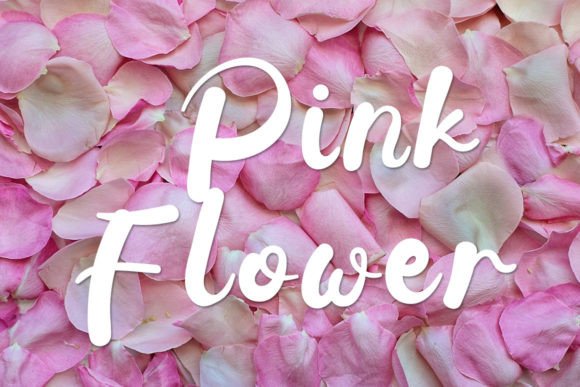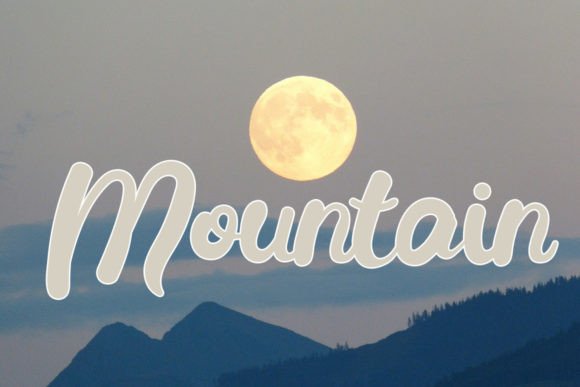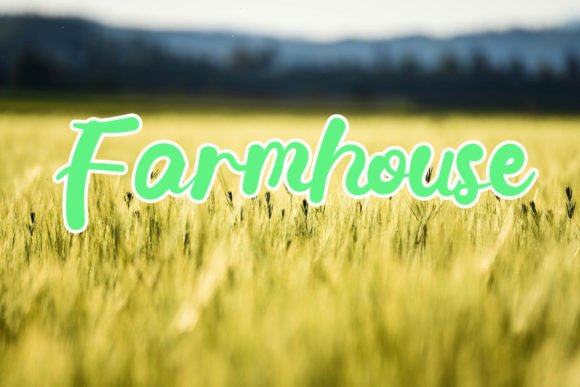
Ghatelly Font: Elevate Your Designs with a Touch of Elegance and Joy
In the vast universe of typography, where fonts are the essence of communication and design, there exists a myriad of choices for every creative project. Among these, the Ghatelly Font stands out as a beacon of elegance, freshness, and cleanliness. This beautiful and sweet font is not just a typeface; it’s an experience that can transform your designs, adding an incredibly joyful touch that captivates audiences. Whether you’re working on formal or informal projects, Ghatelly promises to leave a lasting impression.
The Essence of Ghatelly
Ghatelly is more than just a font; it’s a design element that brings a unique blend of sophistication and playfulness. Its fresh, clean, and elegant design makes it versatile enough to be used across a wide range of projects. From wedding invitations and branding materials to digital content and craft projects, Ghatelly can add a touch of personality that sets your work apart.
One of the key benefits of using the Ghatelly Font is its incredible versatility. This font is not limited by the context in which it’s used. For formal projects, such as corporate branding, official documents, or luxury product packaging, Ghatelly provides a sense of elegance and professionalism. On the other hand, for informal projects like party invitations, DIY crafts, or social media graphics, it adds a playful and joyful vibe that engages the audience.
Why Choose Ghatelly?
There are several reasons why designers and crafters should consider Ghatelly for their projects:
- Elegance and Sophistication: Ghatelly brings an unmatched level of elegance to any design, making it perfect for projects that require a touch of sophistication.
- Versatility: Its clean and fresh design allows it to fit seamlessly into both formal and informal contexts.
- Joyful Touch: The sweet and playful vibe of Ghatelly can add a joyful element to your designs, making them more engaging and memorable.
- Readability: With its clear and clean lines, Ghatelly ensures excellent readability, making it suitable for body text as well as headings.
Using Ghatelly in Design Projects
Incorporating Ghatelly into your design projects is straightforward. Here are a few ideas to get you started:
- Branding and Logos: Use Ghatelly to create elegant and memorable logos or to develop a cohesive brand identity.
- Digital Content: Enhance your blog posts, social media graphics, and website content with a touch of elegance and freshness.
- Print Materials: From business cards and brochures to posters and flyers, Ghatelly can elevate your print materials.
- Crafting and DIY Projects: Add a professional yet playful touch to your handmade crafts, such as personalized gifts, art pieces, or workshop materials.
Ghatelly Font is a remarkable typeface that offers a perfect blend of elegance, freshness, and playfulness. Its versatility and readability make it an excellent choice for a wide range of projects, from formal and professional to informal and creative. By incorporating Ghatelly into your designs, you can add a joyful touch that captivates your audience and sets your work apart. Whether you’re a designer, crafter, or simply someone who appreciates beautiful typography, Ghatelly is sure to become a favorite in your collection.
So, dive into the world of Ghatelly and discover how this beautiful and sweet font can transform your designs, adding a touch of elegance and joy that’s sure to leave a lasting impression.